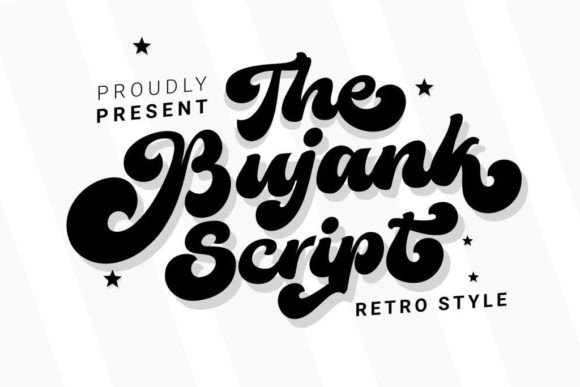
Using The Bujank Script for Retro Web Design
I was halfway through a redesign for a boutique coffee roaster's landing page when I realized the hero section felt too sterile. The layout was clean, the images were crisp, but the headline lacked the warmth of the brand's story. That is exactly when I pulled The Bujank Script out of my font library to see how it would perform in a live digital environment. As a retro display font with very friendly shapes for everyday use, this typeface immediately changed the mood of the page from corporate to inviting. When working with Display Fonts, the goal is always to capture attention without sacrificing readability, and this casual-style script delivered exactly that balance for the project.
Creating Friendly Hero Sections with The Bujank Script
The first place I tested The Bujank Script was right at the top of the viewport, where user attention is most critical. Because these casual-style shapes and characters are created to enhance and maximize the designs you are working on, they sit beautifully over complex background images without getting lost. In web design, a common mistake is choosing a script that is too thin or too ornate for large headers, causing legibility issues on mobile devices. However, this specific Display Fonts selection has enough weight and open counters to remain clear even on smaller smartphone screens. I found that using it for the main value proposition allowed the brand personality to shine through instantly, making the visitor feel like they were walking into a cozy shop rather than browsing a generic e-commerce site.
Optimizing Mobile Readability for Casual Display Fonts
When scaling The Bujank Script down for tablet and mobile views, I paid close attention to line height and letter spacing. Many retro scripts can become muddy when compressed, but the friendly shapes here maintain their integrity. For UI designers, this means you can confidently use this typeface in responsive layouts without needing to swap it out for a system font on smaller breakpoints. The key is ensuring there is enough contrast between the text color and the background. Whether you are placing it on a light cream background for a vintage feel or white text over a dark roasted coffee image, the strokes remain distinct. This reliability makes it a superior choice among Display Fonts for projects that require a consistent brand voice across all device sizes.
Pairing The Bujank Script with Modern Sans Serif Body Copy
A crucial part of my workflow involves finding the perfect partner for a decorative headline font, and The Bujank Script pairs exceptionally well with clean, geometric sans serifs. Since these casual-style shapes and characters are created to enhance and maximize the designs you are working on, they demand a neutral counterpart for the body text to avoid visual clutter. I opted for a simple, humanist sans serif for the paragraphs and button labels, which created a beautiful tension between the nostalgic header and the modern interface elements. This combination is a classic technique in web typography: using a expressive Display Fonts option for emotional impact while relying on a utilitarian font for scanning and reading long-form content. The result was a hierarchy that guided the eye naturally from the emotional hook down to the practical details.
Balancing Visual Hierarchy in Landing Page Layouts
In the context of a sales page or course launch, The Bujank Script works best when used sparingly to highlight key benefits or testimonials. I avoided using it for entire paragraphs, as script fonts are generally not designed for heavy reading loads. Instead, I utilized it for pull quotes and section dividers, allowing the friendly shapes to act as visual breathing room within the layout. This approach ensures that the Display Fonts category is respected; these tools are meant to decorate and emphasize, not to carry the entire informational load. By restricting its use to headlines and short phrases, the font retains its special status and prevents the user from experiencing fatigue. It creates a rhythm on the page that feels curated and thoughtful, enhancing the overall user experience.
Enhancing Brand Identity for Boutique Online Stores
For the coffee roaster project, the ultimate goal was to translate a physical sensation into a digital format, and The Bujank Script bridged that gap effectively. The retro aesthetic evokes a sense of tradition and craftsmanship, which is vital for artisanal brands selling premium products. When customers see these casual-style shapes and characters created to enhance and maximize the designs you are working on, they subconsciously associate the website with quality and care. This psychological effect is powerful for conversion; it builds trust before the user even clicks a product. Integrating such a distinct Display Fonts style into the logo, navigation accents, and promotional banners creates a cohesive brand kit that stands out in a crowded marketplace. It moves the design away from template-looking genericism toward a custom, branded experience.